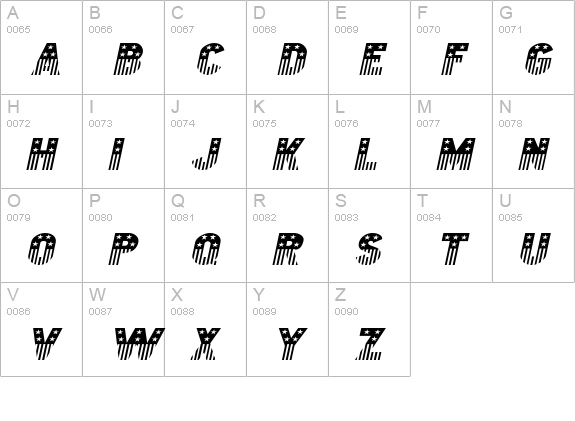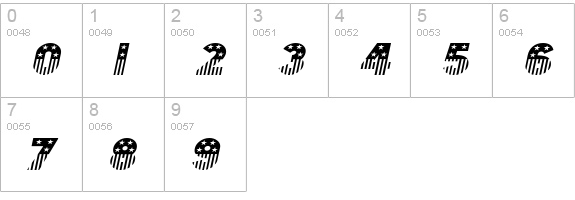
Bunting 2Extended Italic is a distinctive, extended-width, italic variant in the Bunting typeface family \xE2\x80\x94 well suited to design and typography projects.
Bunting 2Extended Italic font exudes elegance and sophistication with its sleek and modern design. Its extended form adds a unique touch, making it perfect for headings and titles that demand attention. The italic style adds a sense of movement and flair, lending a dynamic and engaging look to any text. This versatile font is ideal for a wide range of design projects, from branding to advertising to editorial content. Its clean lines and subtle curves create a harmonious balance that is both eye-catching and easy to read. Best of all, Bunting 2Extended Italic font is available for free download at FontsMarket.com, allowing you to add this stunning typeface to your collection without any cost. Don't miss out on the opportunity to elevate your designs with this beautiful and impactful font.